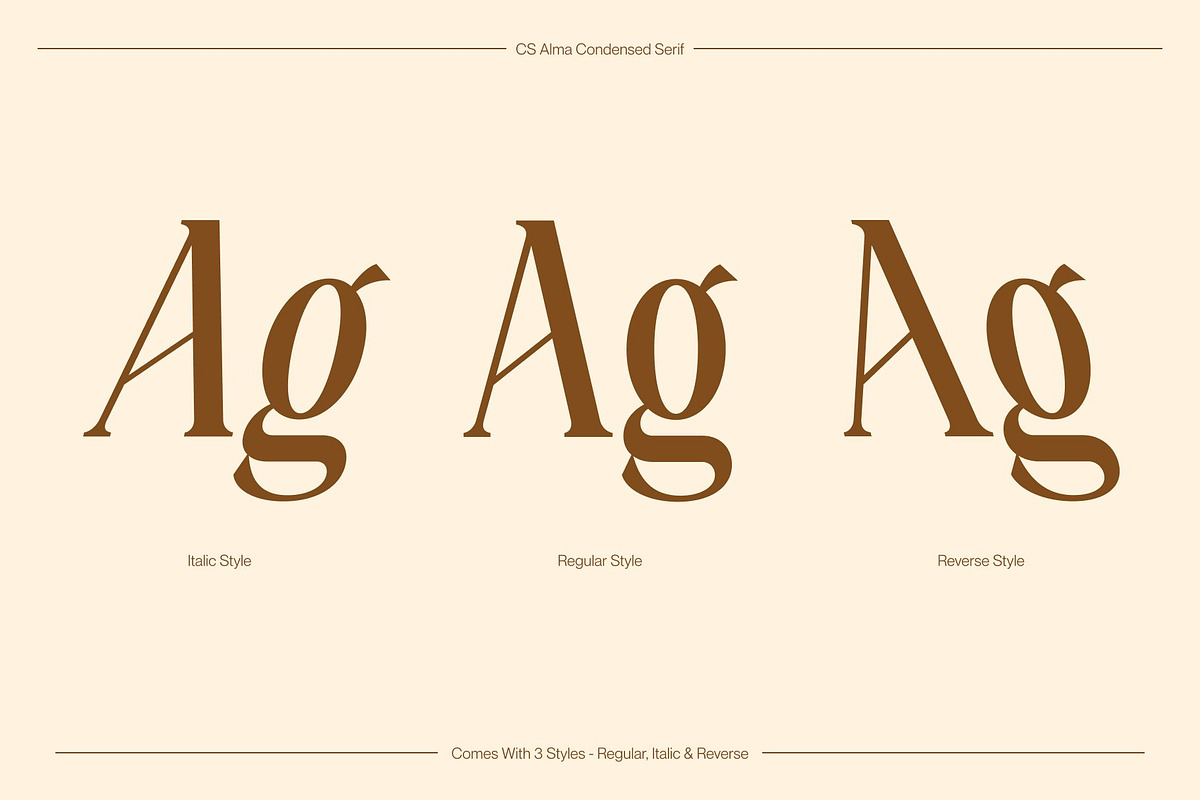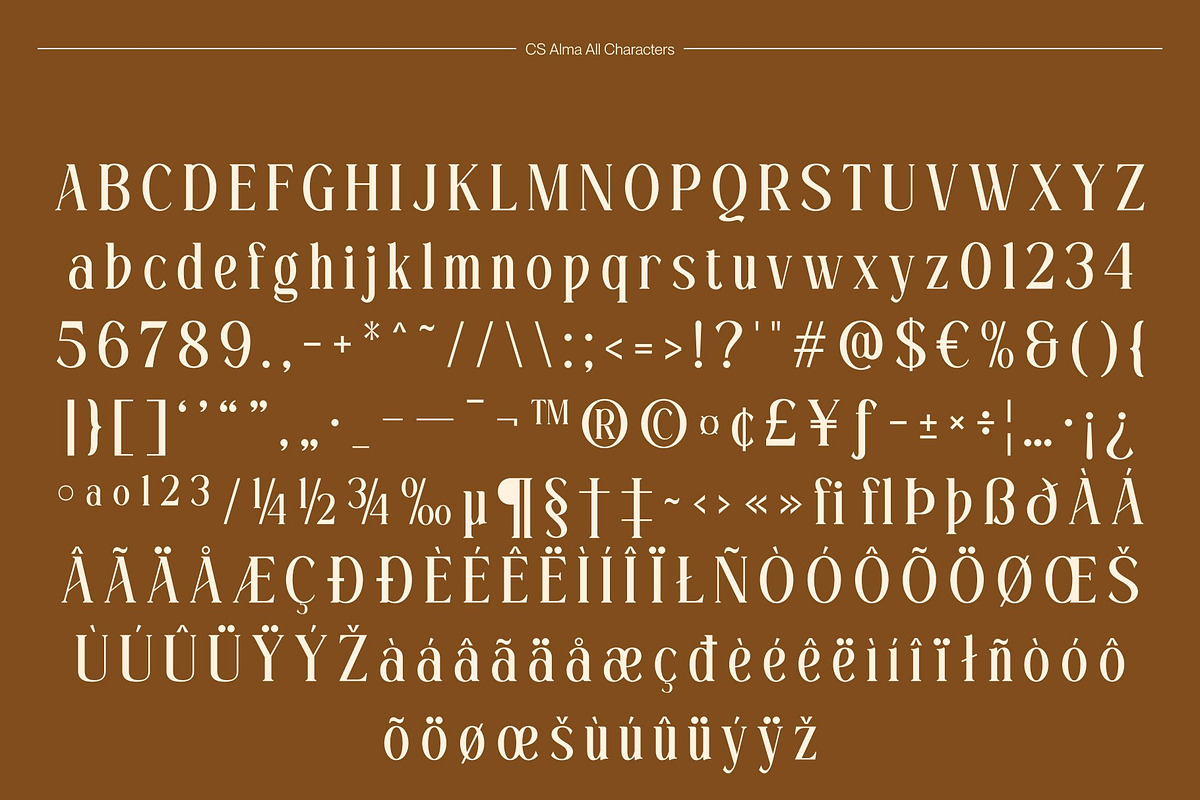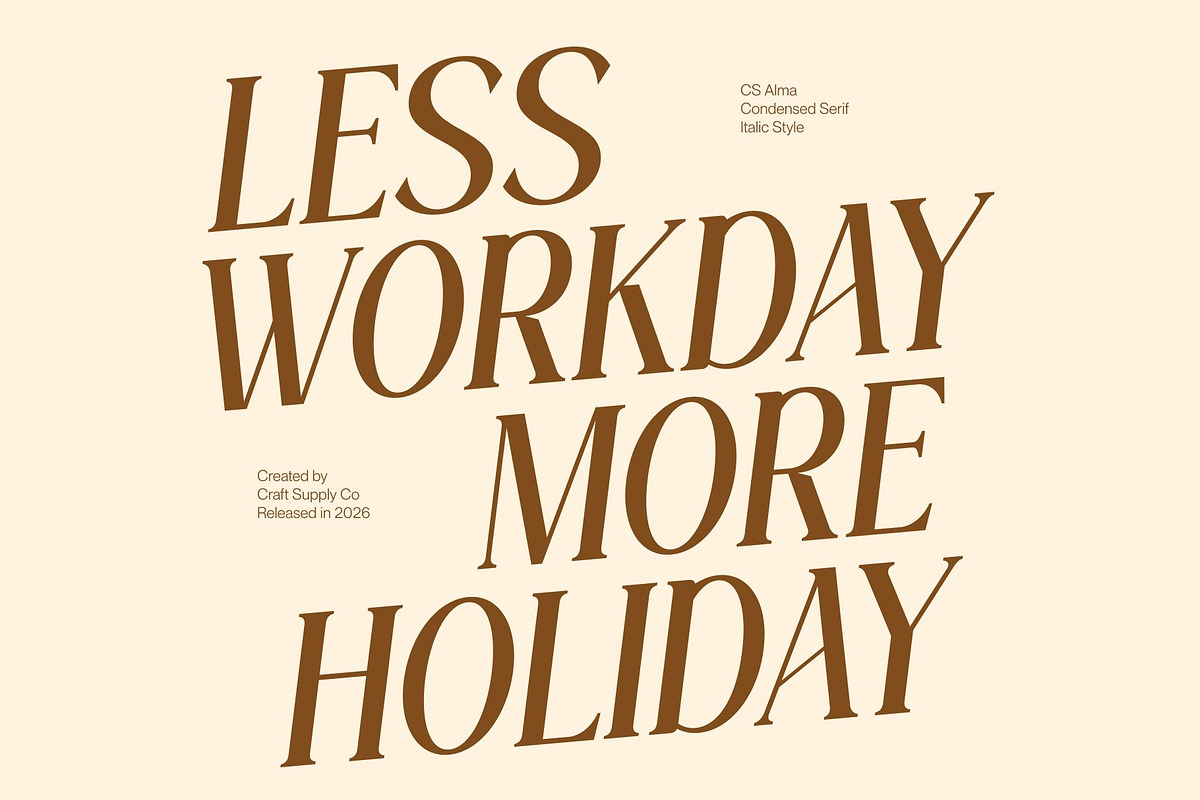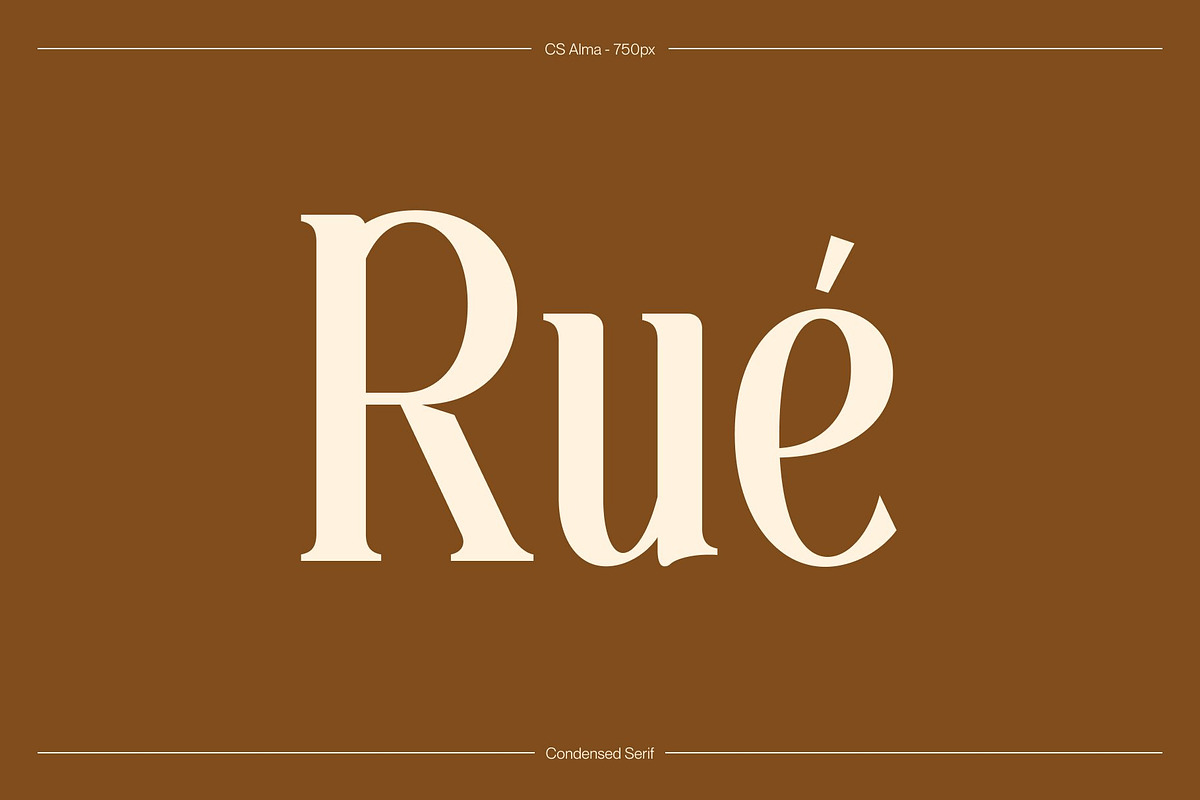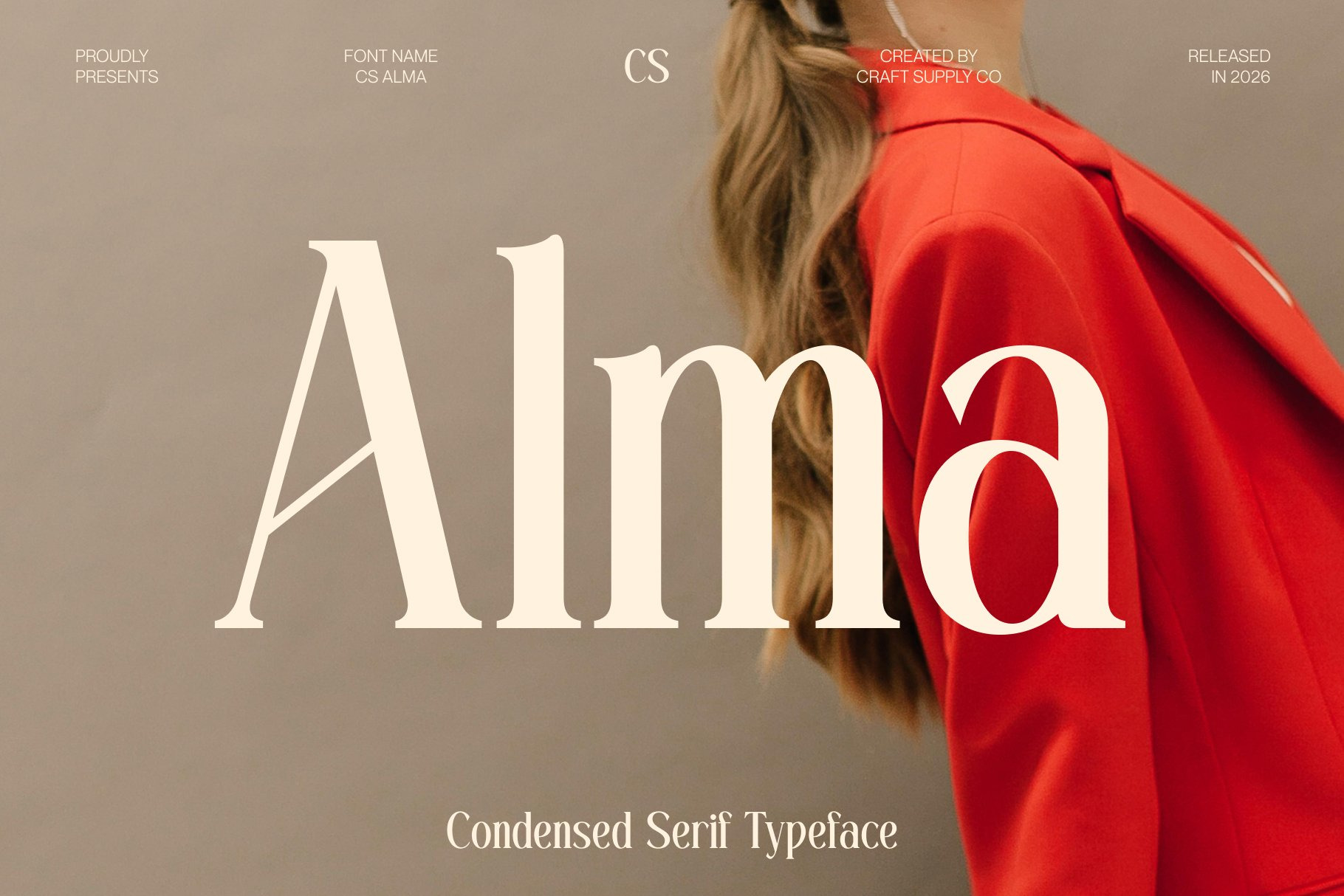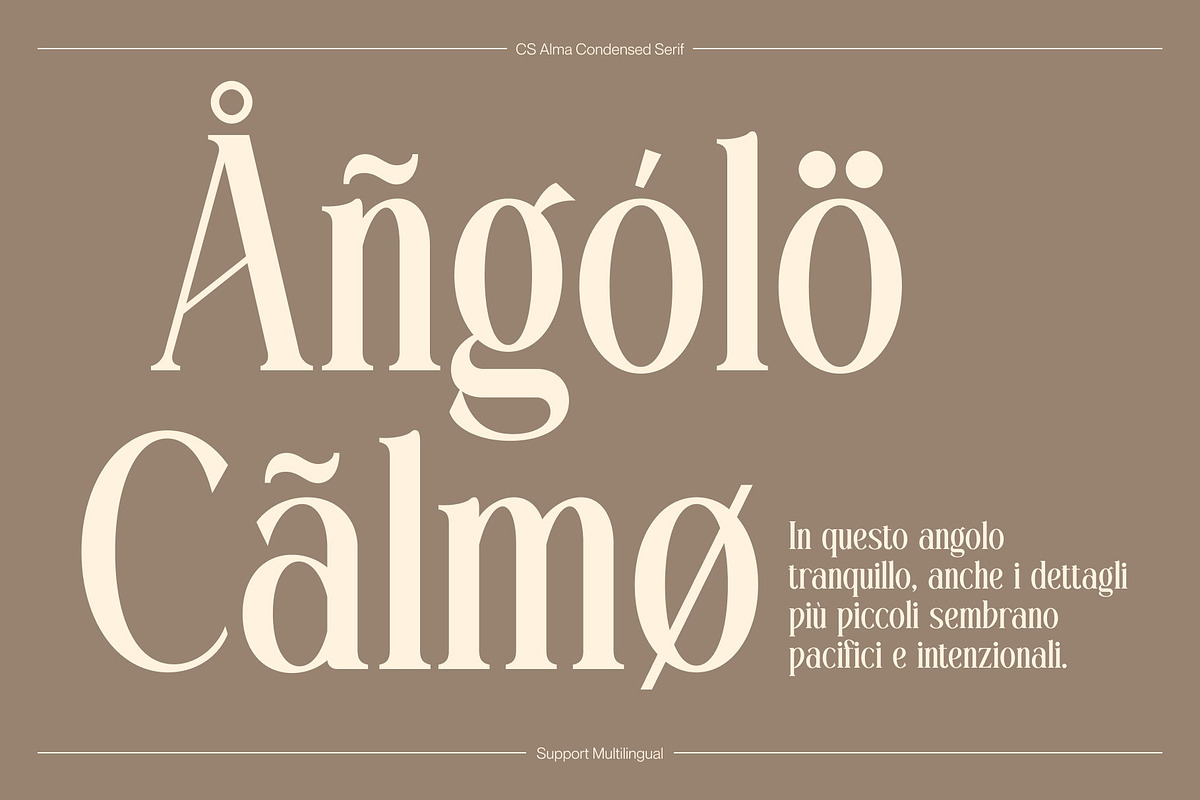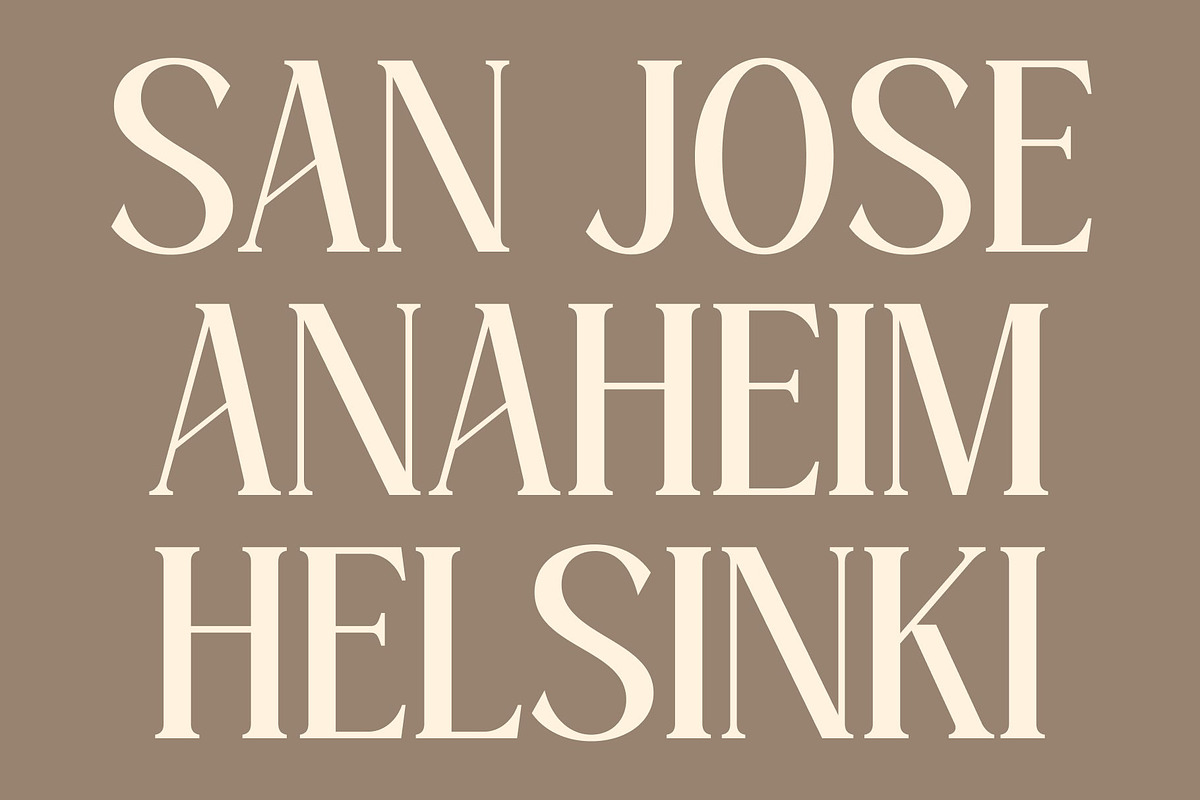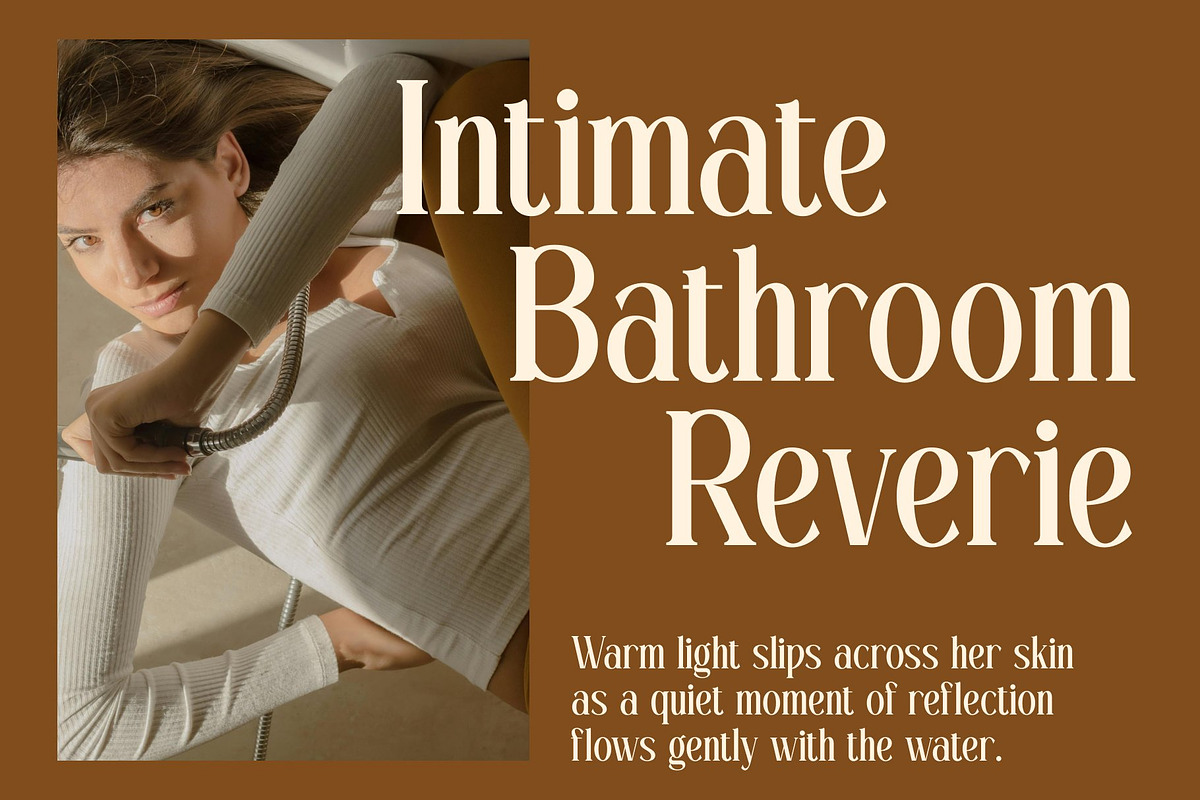
CS Alma – Condensed Font
CS Alma – Condensed Modern Serif with Contemporary Elegance
Condensed Modern Serif Font This is a condensed modern serif font designed to express elegance through refined proportions and contemporary structure. Its narrow letterforms create a strong vertical rhythm, allowing designs to feel sophisticated and efficient at the same time. The overall construction feels modern and confident, making the font ideal for high-end visual communication.
Long, Slim Serifs with Graceful Detail The defining feature of this font lies in its long, slim serifs that add a sense of luxury and finesse. These delicate extensions enhance the graceful flow of each character while maintaining clarity and balance. The serif details feel light and intentional, giving the font a polished appearance that elevates any layout.
Contemporary Shape with Elegant Presence This font blends classic serif elegance with a modern sensibility. Its contemporary shapes keep the font feeling fresh, stylish, and relevant, while the condensed form adds a fashion-forward edge. This combination creates a striking visual presence that stands out without overpowering the design.
Perfect for Luxury and Editorial Design Ideal for luxury branding, posters, and editorial layouts, this font excels in headlines, titles, and refined typographic compositions. Whether used in fashion campaigns, premium packaging, or magazine design, it delivers a graceful, elegant tone that communicates sophistication, style, and modern luxury with confidence.
- CS Alma Regular
- CS Alma Italic
- CS Alma Reverse Italic